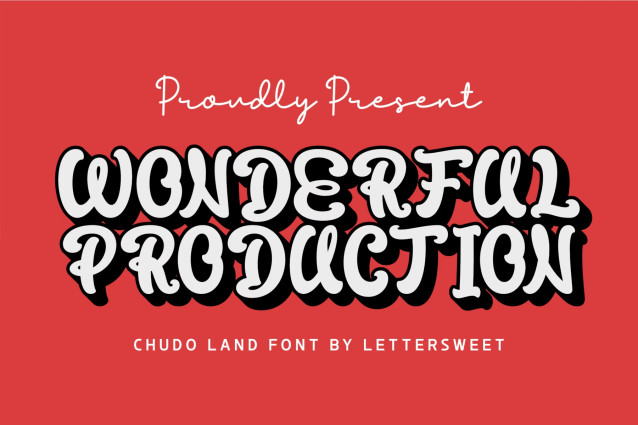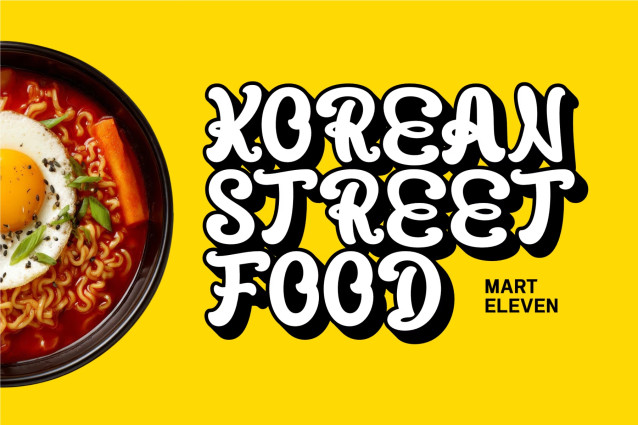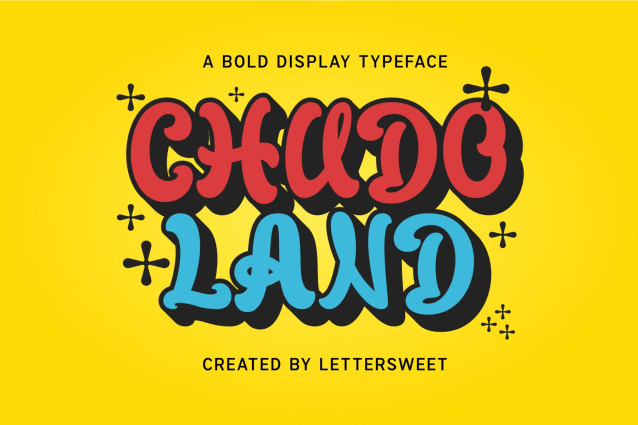
Chudo Land is a bold and playful display typeface with a strong retro and funky personality. Its chunky shapes, flowing curves, and unique letterforms create an expressive handcrafted look that instantly attracts attention.
Inspired by groovy and vintage typography, Chudo Land works perfectly for logos, posters, apparel, packaging, album covers, merchandise, social media, headlines, and creative branding. Its bold appearance makes it especially effective for large text and short statements that need to stand out.